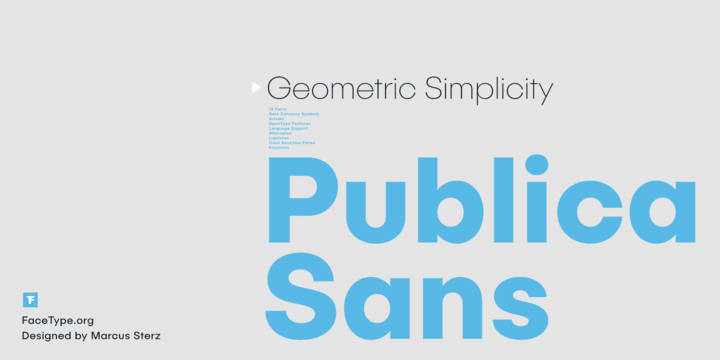
Publica Sans Font Family
Publica Sans is a clean geometric typeface, equipped with a variety of OpenType features to give you all you need for great typography: Alternates, arrows, rare currency symbols, case sensitive forms, various sets of figures and discretionary ligatures. Publica Sands has two sisters: Publica Play and Publica Slab.